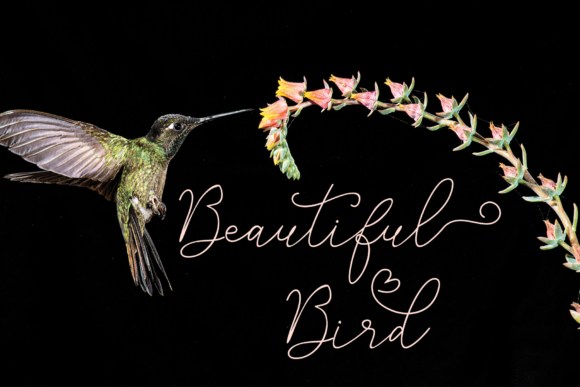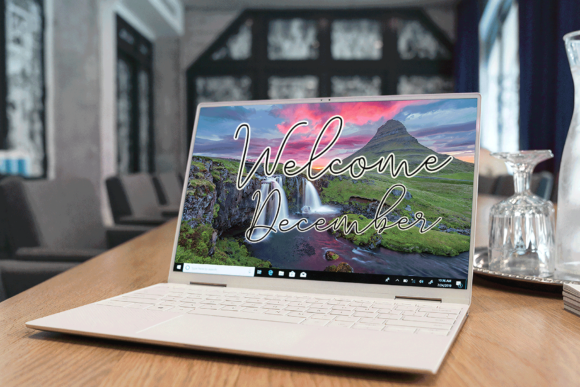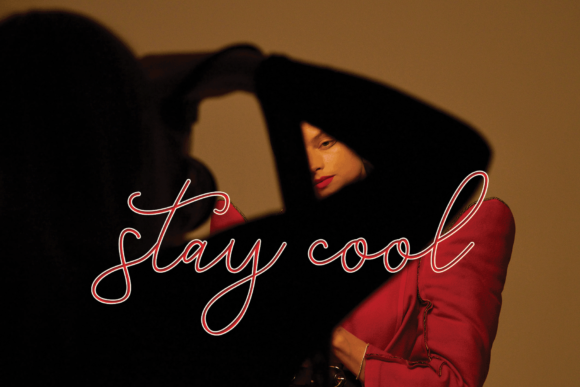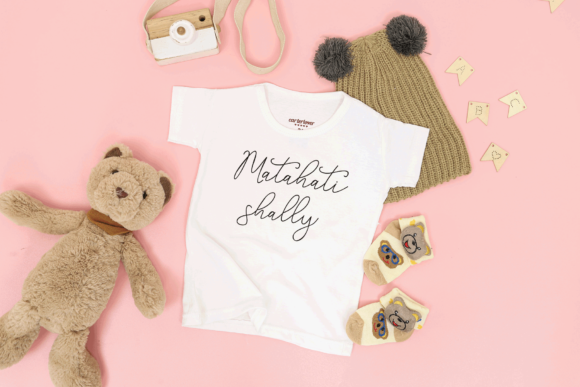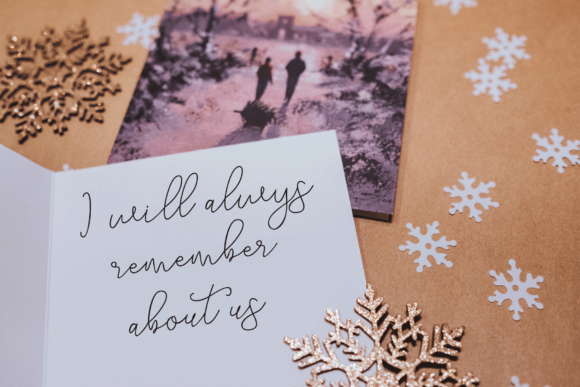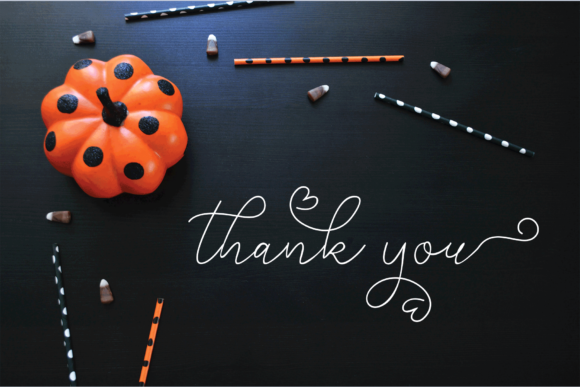
Introduction to Salongtar Font Font
Fonts play a crucial role in design, and the Salongtar Font font is a typeface that brings both character and versatility to any project. Whether you’re working on a branding project, a website, or a print design, the Salongtar Font font offers a unique style that can elevate your work.
Salongtar is a signature font.
Designed by handwriting, this font has modern and unique forms of calligraphy The writing style is very natural.
Key Features of Salongtar Font Font
Why Choose Salongtar Font Font?
The Salongtar Font font is more than just a typeface – it’s a design tool that helps you communicate your message with style and clarity. Its unique character set and versatile design make it suitable for a wide range of applications, from elegant invitations to bold headlines.
With its carefully crafted letterforms and balanced proportions, the Salongtar Font font ensures readability and visual appeal across all mediums.
What makes Salongtar Font font special?
The Salongtar Font font stands out with its unique design, exceptional readability, and versatility across various design applications.